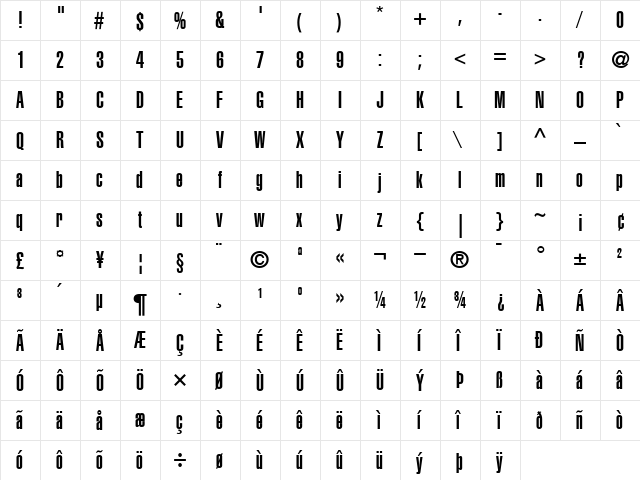
Helvetica-UltraCompressed Roman
Design Context for Helvetica-UltraCompressed Typeface
Helvetica-UltraCompressed takes a measured approach to typography — its balanced proportions and neutral character make it a reliable workhorse for both digital and print work.